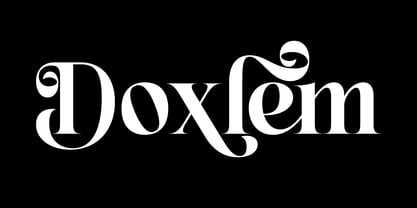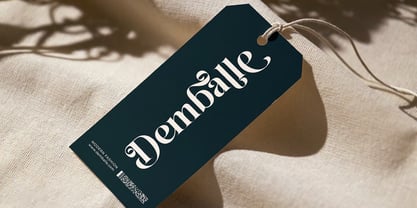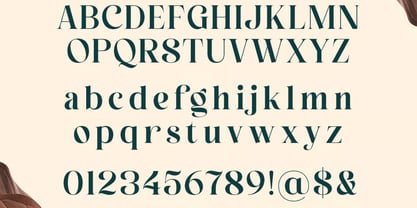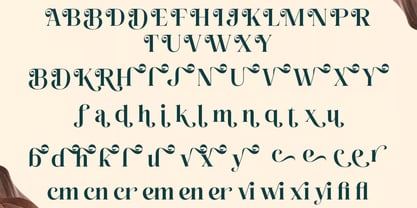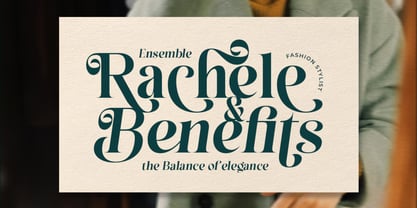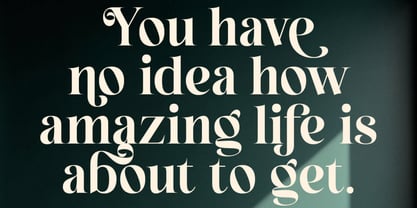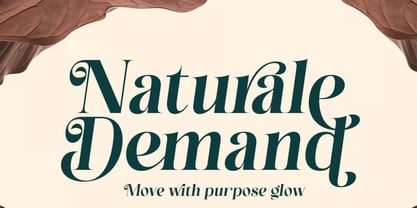
Doxlem
The Doxlem Font Family was designed by Hasnat Khan and published by Hasnat Studio. Doxlem contains 1 styles. More about this family
Doxlem is a modern serif typeface that beautifully blends editorial sophistication with soft, aesthetic curves. Designed with refined proportions, graceful ligatures, and an elegant visual rhythm, Doxlem brings a timeless sense of class and creativity to every design. It is crafted for designers who want typography that feels both luxurious and emotionally expressive.
With its balanced structure and stylish details, Doxlem is ideal for high-end visual identities where elegance and personality must coexist. From fashion branding and magazine layouts to luxury packaging and signature logos, this typeface elevates every composition with effortless refinement.
Whether used in bold headlines or delicate editorial compositions, Doxlem delivers a polished, contemporary aesthetic that enhances brand storytelling and visual impact.
✿ Key Features:
• Modern Serif Design: Elegant and refined letterforms with a contemporary editorial feel.
• Soft Aesthetic Curves: Smooth shapes that add warmth and sophistication.
• Graceful Ligatures: Stylish character connections for premium typography.
• Creative Alternates: Unique glyph variations for expressive design flexibility.
• Regular & Italic Styles: Versatile font family for dynamic layouts.
• Uppercase & Lowercase Letters: Complete character set for professional use.
• Multilingual Support: Includes accented characters for global applications.
• High-Quality Font Structure: Designed for both print and digital excellence.
✿ Perfect For:
• Luxury Branding & Logo Design: Create elegant and memorable brand identities.
• Fashion & Editorial Design: Ideal for magazines, lookbooks, and style campaigns.
• Packaging Design: Perfect for beauty, cosmetics, and premium product branding.
• Wedding & Event Stationery: Add timeless sophistication to invitations and cards.
• Social Media & Marketing: Design refined and eye-catching visual content.
• Posters & Advertising: Create impactful yet elegant promotional materials.
• Creative Typography Projects: Ideal for quotes, titles, and artistic layouts.
Elevate your creative projects with Doxlem—a modern serif typeface featuring elegant ligatures, soft curves, and refined editorial styling. Perfect for luxury branding, fashion design, packaging, magazines, logos, and sophisticated visual identities that demand excellence.